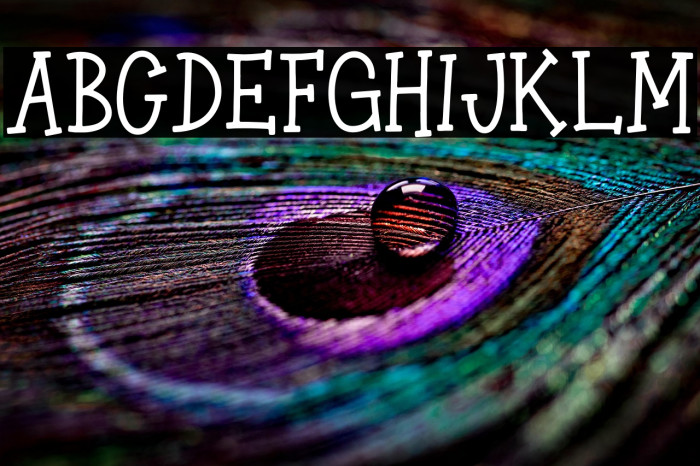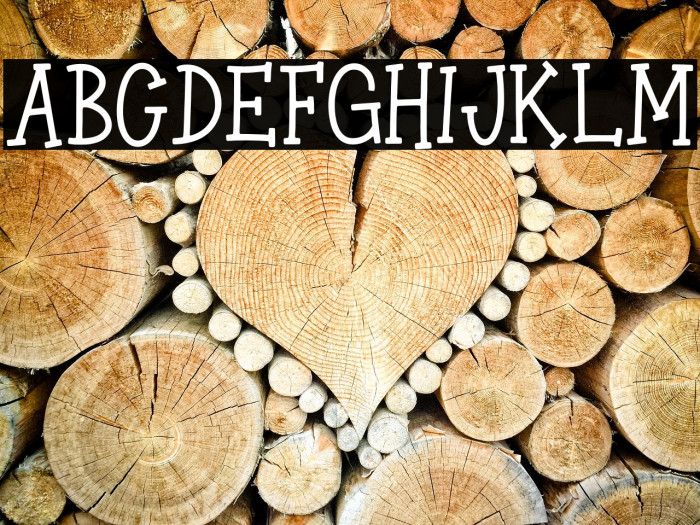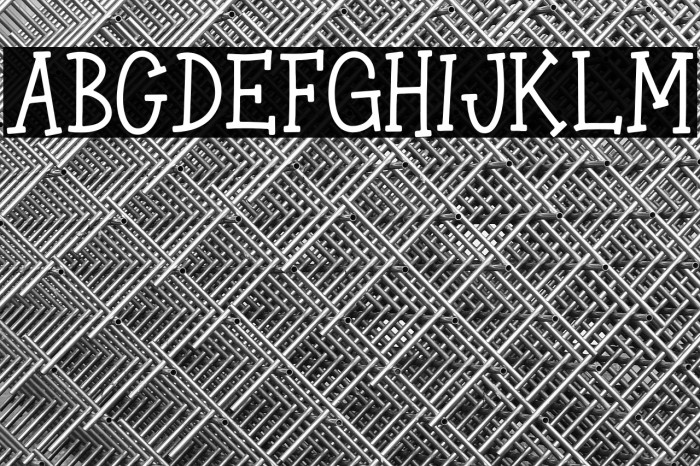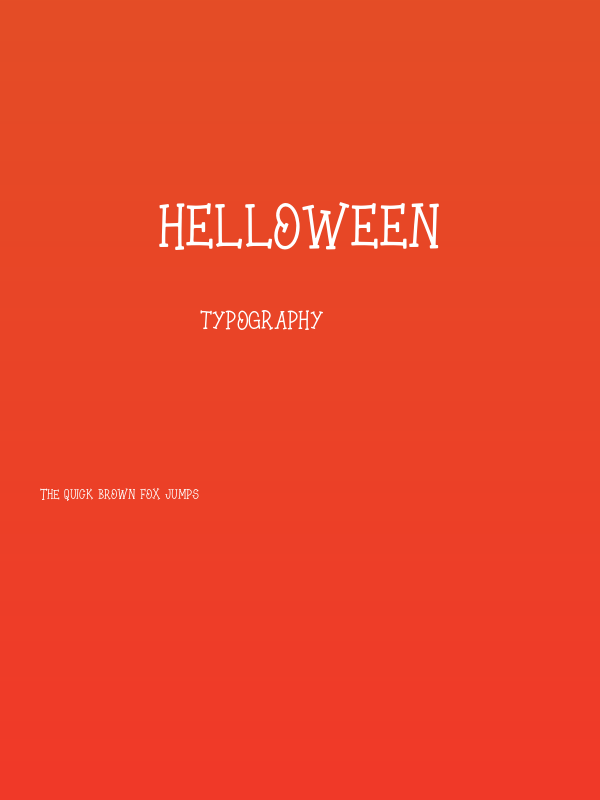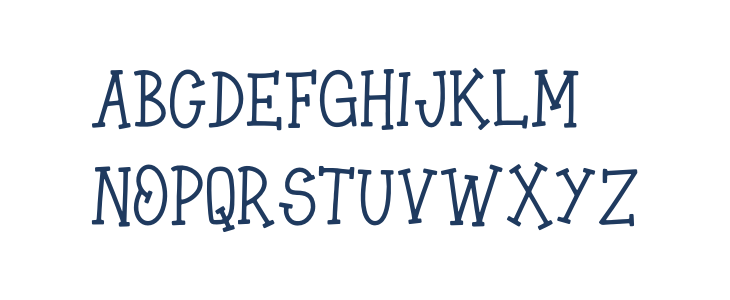
Helloween Font
Helloween Description
This playful and whimsical font features a hand-drawn style with uneven lines and quirky character shapes. The letters have a slightly irregular baseline, giving them a lively and animated appearance. The strokes are consistent in thickness, providing a uniform look across all characters. The font exudes a sense of fun and creativity, making it ideal for projects that require a touch of personality and charm. Its unique style is reminiscent of a casual, handwritten script, yet maintains a structured form that ensures readability.
| Proposed Projects | Ideal for children's books, greeting cards, playful branding, and creative posters. |